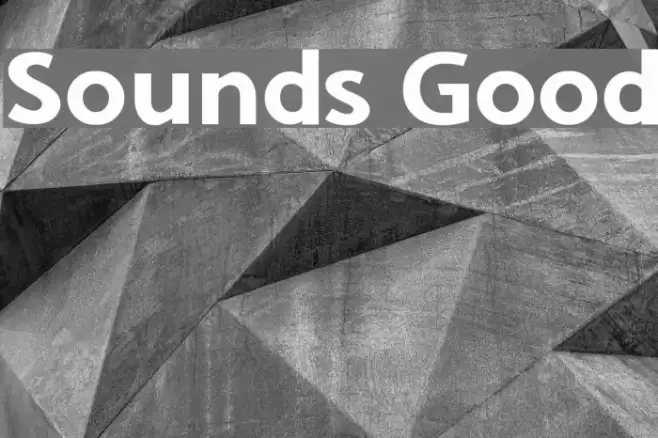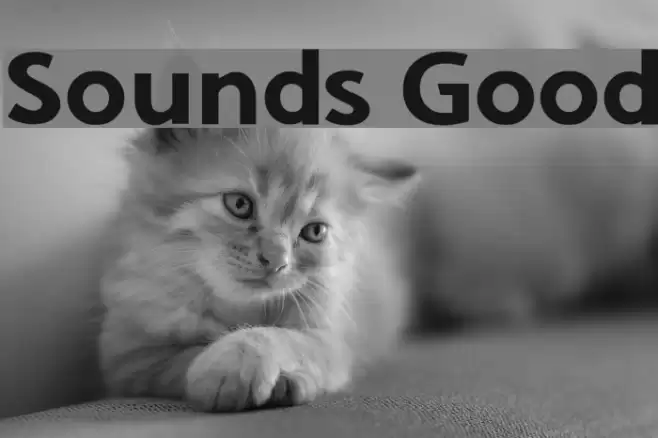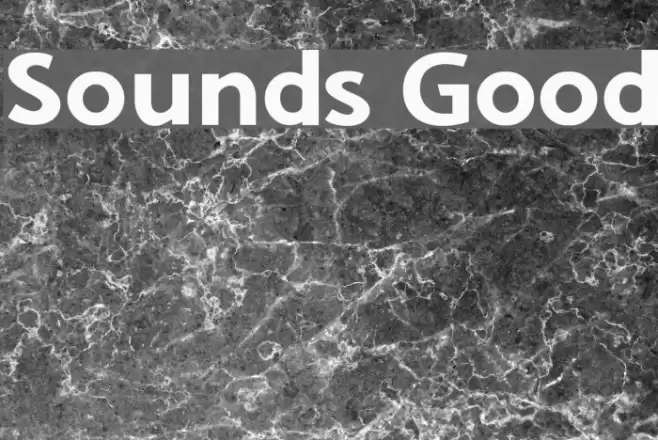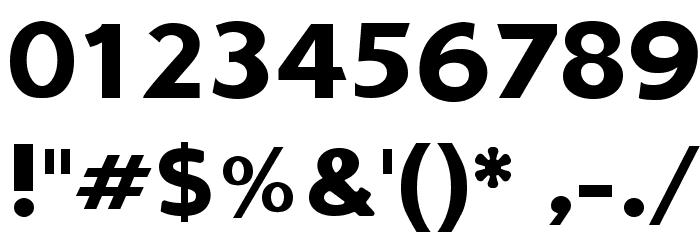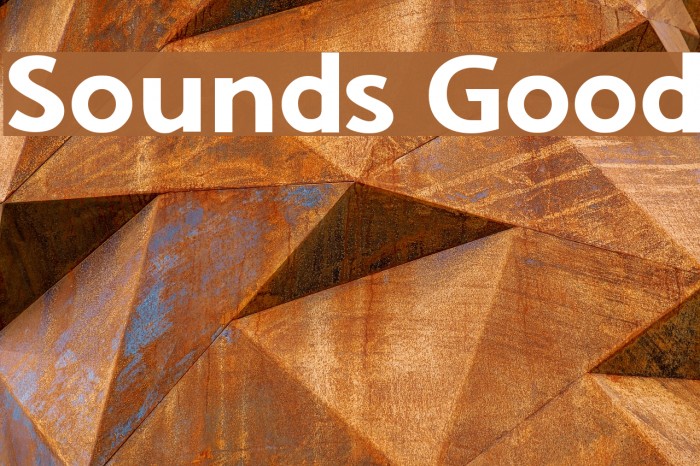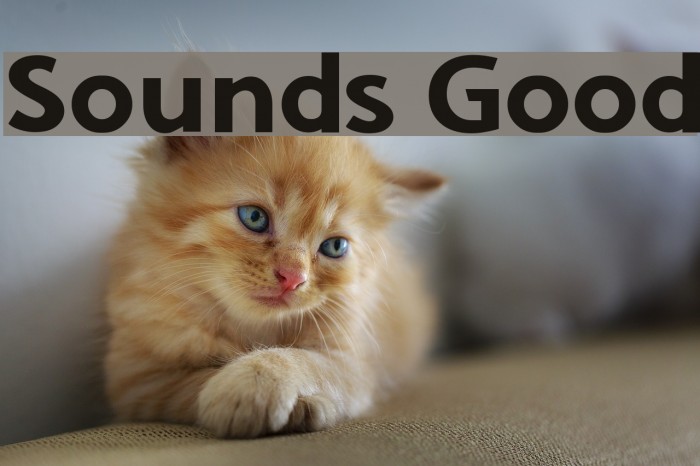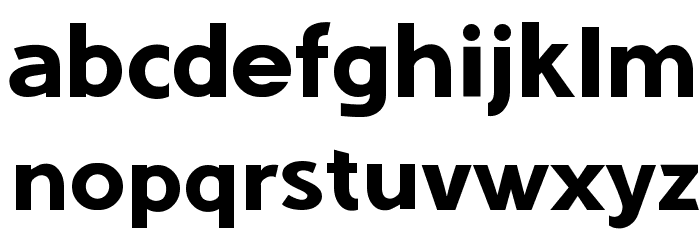
Sounds Good Font
Sounds Good Description
This font features a clean and bold sans-serif design, characterized by its strong geometric shapes and uniform stroke widths. The uppercase letters are tall and commanding, while the lowercase letters maintain a consistent and balanced appearance. The numbers are clear and easy to read, making them suitable for various applications. Special characters are well-defined, adding to the font's versatility. The overall look is modern and professional, making it ideal for both digital and print media.
A bold, modern sans-serif font with geometric shapes and uniform strokes from Uncategorized fonts.
- Proposed Projects: Ideal for branding, advertising, web design, and editorial projects.
- Use Case: Headlines, Logos, Digital Media